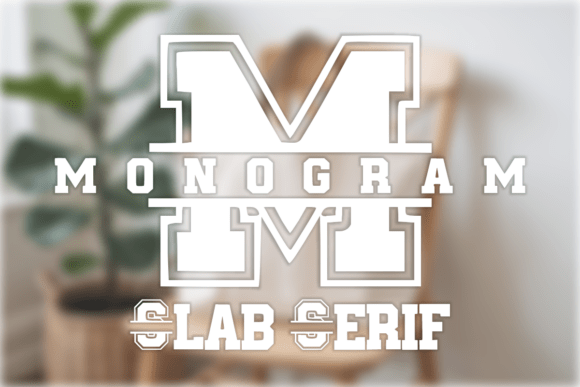
Monogram Slab Serif: The Ultimate Customization Font
Monogram Slab Serif is a versatile and stylish font designed for those who want to add a touch of elegance to their projects. With its bold slab serif design, it offers a classic, collegiate feel that can elevate everything from personal items to professional branding. Whether you're creating custom gifts or designing logos, this font provides the perfect blend of style and functionality.
Why Monogram Slab Serif Matters
For many, the right font can make all the difference in how a project is perceived. Monogram Slab Serif stands out because it combines a strong visual presence with practical features. Its split monogram design allows for easy customization, making it ideal for inserting names, initials, or text in the center of your design. This makes it a go-to choice for anyone looking to create personalized items that stand out.
Who Benefits from Monogram Slab Serif?
Monogram Slab Serif appeals to a wide range of users, each with their own unique needs and goals. Here are a few examples:
- Home Decor Enthusiasts: If you enjoy personalizing your living space, this font can help you create family name signs, doormats, or decorative pillows that reflect your style.
- Apparel Designers: From varsity jackets to sports jerseys, Monogram Slab Serif adds a polished look to custom clothing, making it a favorite among designers and small business owners.
- Gift Givers: Personalized mugs, tumblers, and journals can become meaningful keepsakes when enhanced with this font, making it a popular choice for those looking to give thoughtful presents.
- Wedding Planners: Sophisticated invitations and event materials benefit from the font's elegant appearance, helping to set the tone for special occasions.
Key Features and Benefits
Monogram Slab Serif comes with a variety of features that make it a reliable choice for different projects. The uppercase alphabet offers bold, classic characters that are perfect for creating a strong visual impact. The split monogram letters are especially useful for inserting names or text in the center of a design, allowing for greater flexibility in customization.
In addition to the letters, the font includes basic numbers and symbols, ensuring that your designs are complete and cohesive. Its varsity collegiate style makes it ideal for sports-themed or academic projects, while its compatibility with cutting machines like Cricut and Silhouette ensures smooth operation for DIY enthusiasts and small businesses.
How Different Users Might Approach Monogram Slab Serif
While Monogram Slab Serif has broad appeal, different users may prioritize different aspects of the font based on their needs and goals. For example:
- Professionals: An experienced designer or business owner might prioritize quality, versatility, and commercial value. They may look for a font that can be used across multiple projects and platforms without compromising on style or performance.
- Educators: Teachers or educators might find value in using the font for classroom materials, such as name tags, posters, or project displays. Its clear and bold design can help improve readability and engagement.
- Hobbyists: Those who enjoy crafting or DIY projects may appreciate the font’s ability to work well with cutting machines. It can help them create intricate designs with minimal effort.
Each of these groups may evaluate the font differently, but all can benefit from its combination of style, functionality, and ease of use.
Practical Applications and Examples
Understanding how Monogram Slab Serif can be applied in real-world scenarios can help users determine if it aligns with their goals. Here are some examples:
- Personalized Gifts: Imagine creating a custom mug for a friend with their initials in Monogram Slab Serif. The font’s bold and elegant style adds a touch of sophistication that makes the gift feel more special.
- Home Decor: A family name sign made with this font can transform a front door into a welcoming space. Its clean lines and classic look make it a timeless addition to any home.
- Business Branding: A small business owner might use the font for logo designs, signage, or marketing materials. Its professional appearance helps establish credibility and consistency across all brand assets.